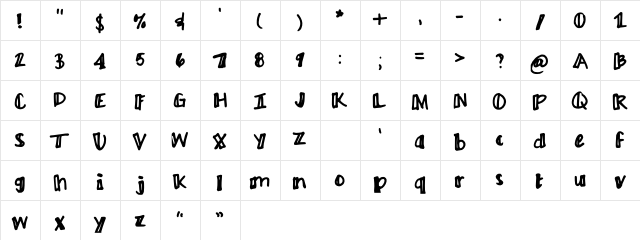
Ayme one-sided outline sided outline
Design Context for Ayme one-sided outline Typeface
Ayme one-sided outline is built around its visual character rather than neutral utility — its distinctive forms are designed to make an impression at display sizes.
Font Pairing: Pair with a clean neutral sans-serif for body copy to let Ayme one-sided outline's character lead without overwhelming the composition.
Pro Tip: Treat Ayme one-sided outline as the centrepiece of your typographic hierarchy. One strong heading set in a decorative face can carry an entire layout.